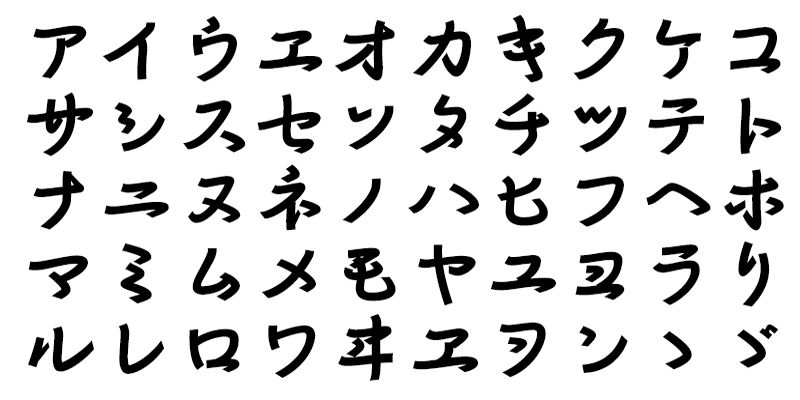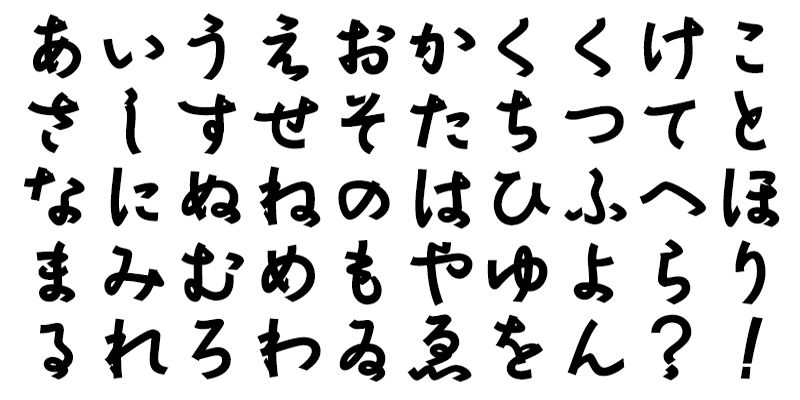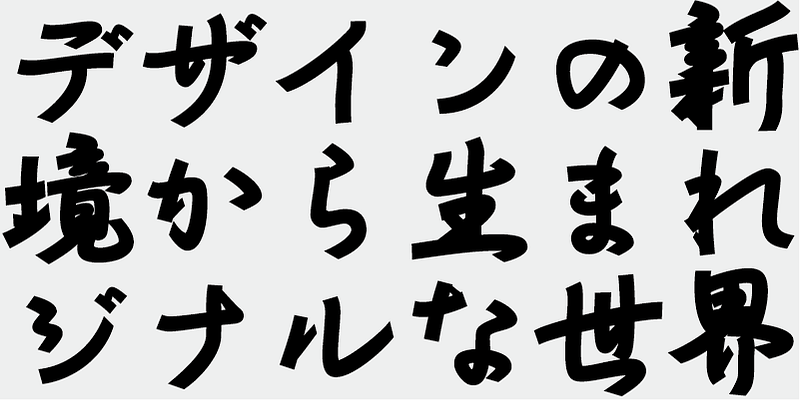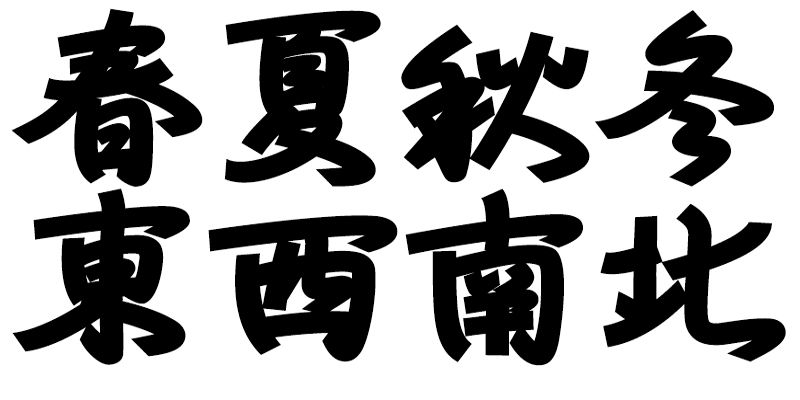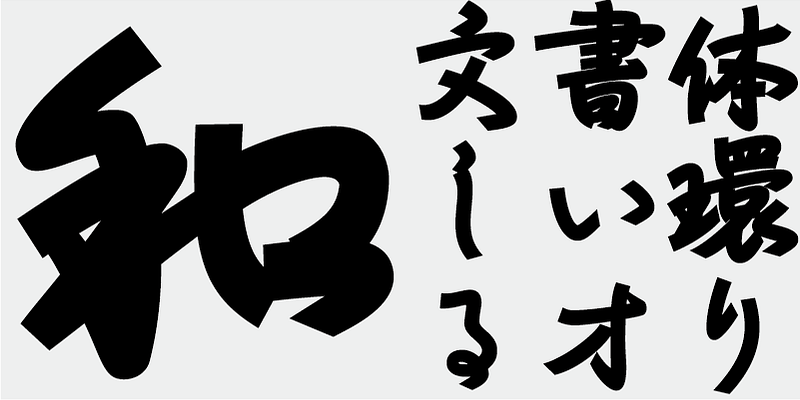
Like floating through mountains, rivers, sea, sky, and nature, Ryusen-fuyu is intended to conjure the image of rapidly flowing water. It will give text the feeling of a letter written in a flowing hand.